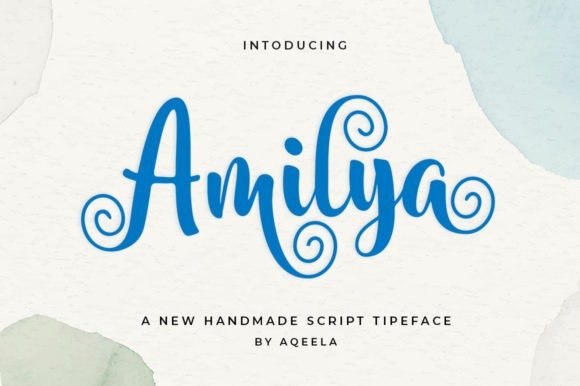
Amilya Font
Amilya Font is soft and sweet calligraphy typeface, with characters dance along the baseline.
It has a casual and elegant touch. Can be used for various purposes.such as logos, wedding invitation, heading, t-shirt, letterhead, signage, lable, news, posters, badges etc.